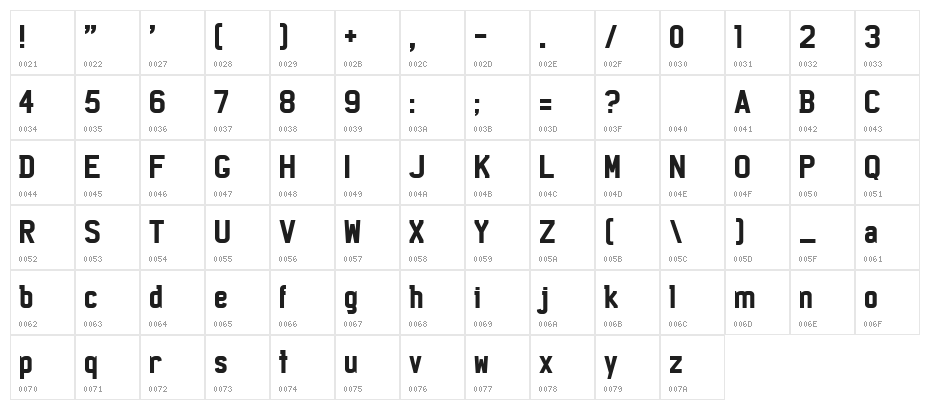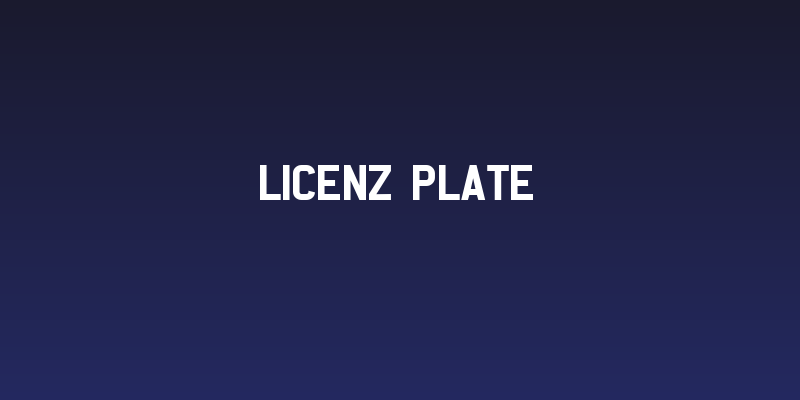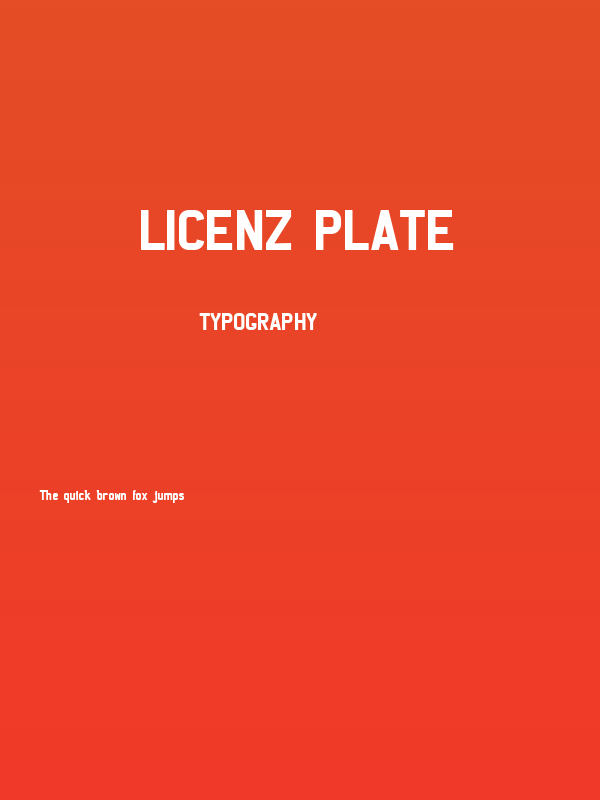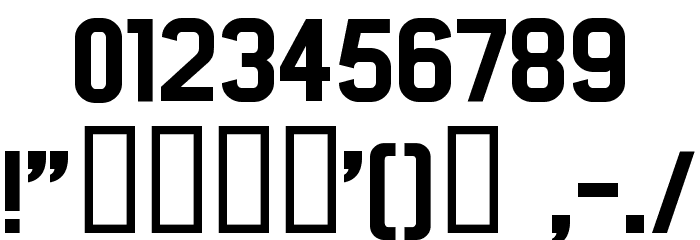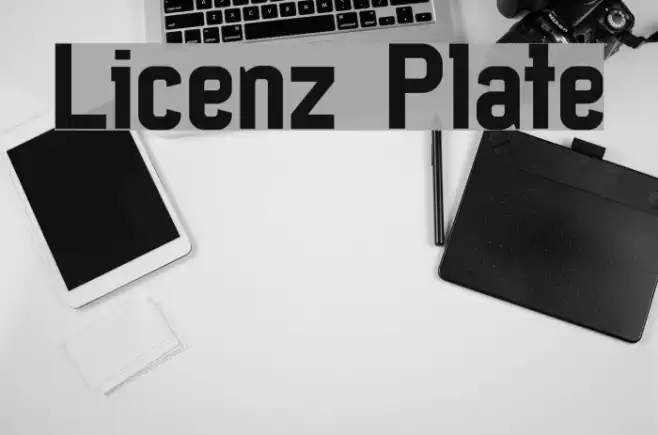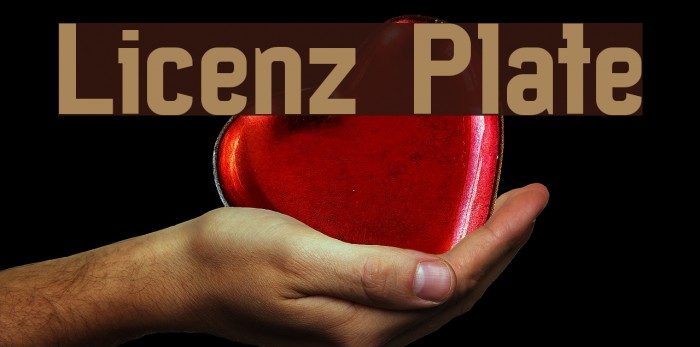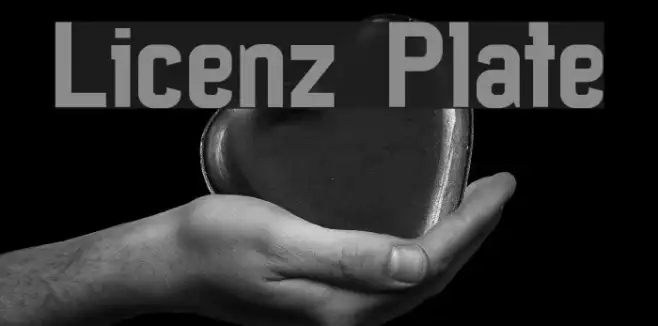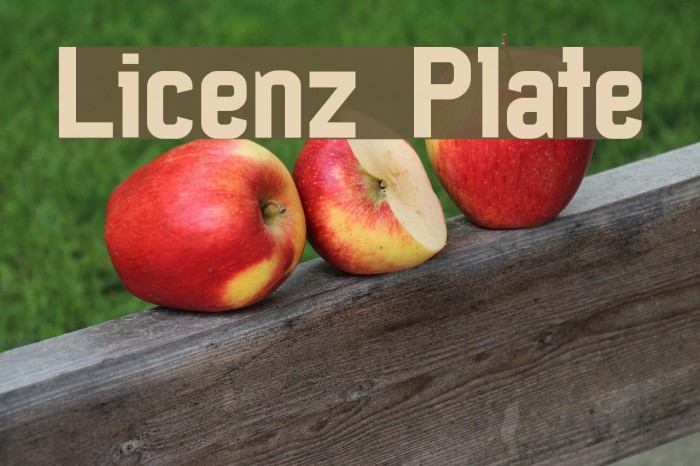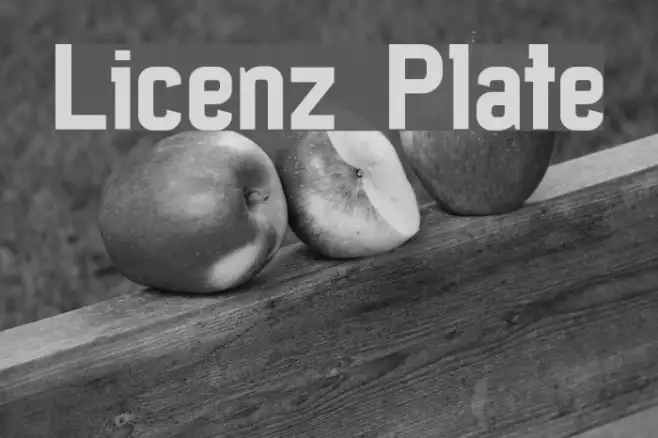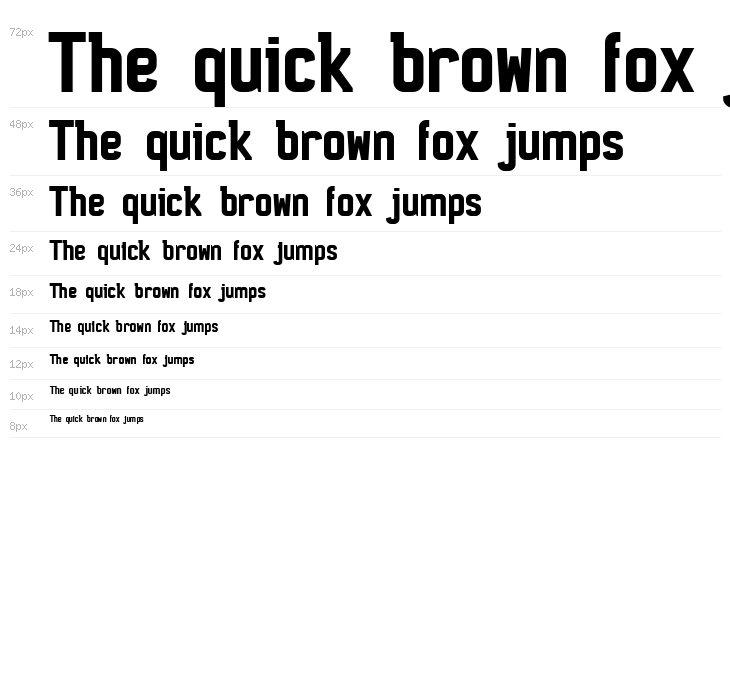
Licenz Plate Font
Licenz Plate Description
This font features a bold and modern design with a strong geometric structure. The characters are uniform in width, giving it a monospaced appearance, although it is not strictly monospaced. The uppercase letters are tall and commanding, while the lowercase letters maintain a consistent height, enhancing readability. The numerals are clear and distinct, making them suitable for display purposes. Special characters are included, maintaining the same bold and structured style. The overall look is clean and professional, making it versatile for various design applications.
| Use Case | Headlines, Logos, Signage |
| Proposed Projects | Ideal for use in signage, branding, posters, and digital interfaces where clarity and impact are essential. |